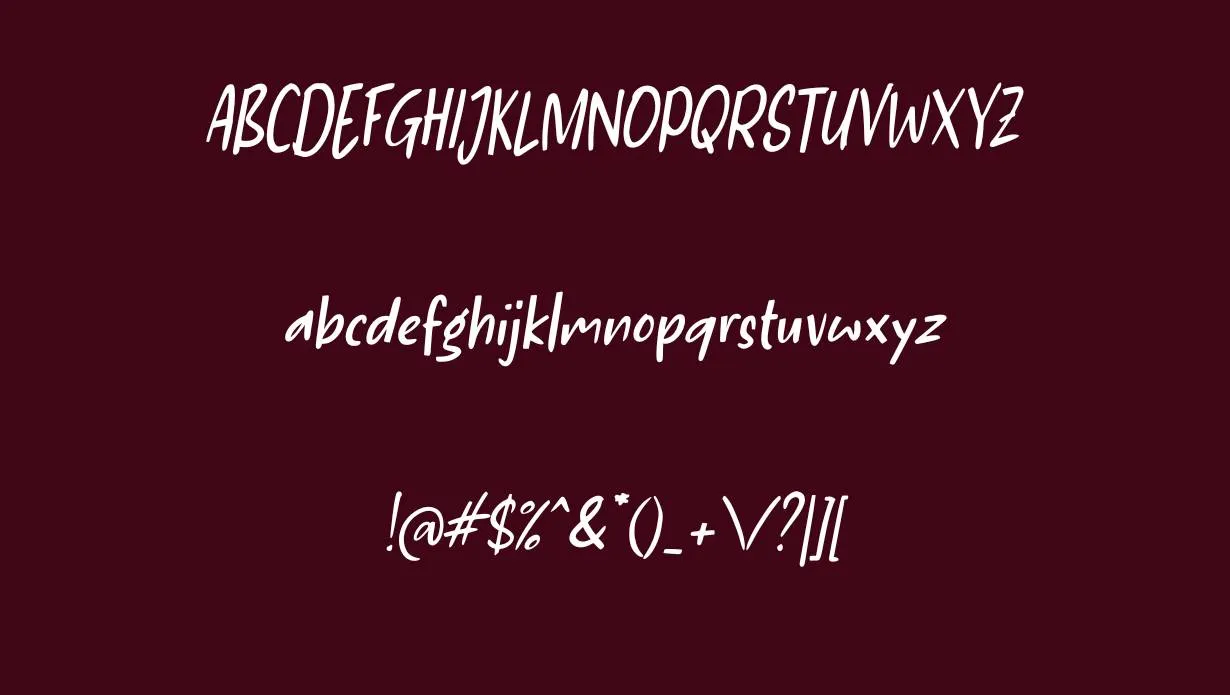
The Rascals font is like a mischievous friend for your words. With its playful and friendly style, it’s perfect for creating fun birthday cards, designing whimsical posters, or adding a touch of joy to children’s book covers.
This font has a medium weight and standard width, making it easy to read and bringing a sense of lightheartedness to your text. Imagine using The Rascals font for a playful invitation to a lively celebration, making your words dance with mischief and laughter.